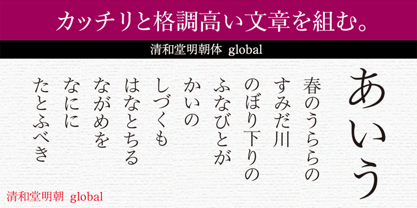
Seiwa Min Global Std
by Seiwado
After the transition from metal type to phototypesetting, characters were able to be designed directly by brush writing, resulting in elegant and delicate forms. The kanji of "Seiwado Mincho" have evolved this further, adjusted for an optimal snug fit not seen in previous Mincho types, and incorporating the attractive taste of traditional body-text Mincho in their form, thus creating a dignified kanji for text purposes. "SeiwaMin Global" serves as the flagship typeface and, while cherishing each character's unique shape, it pursues standardization and versatility to enhance usability, expressing an ideal form that specializes in readability. The design includes a seemingly orthodox skeleton structure that facilitates the flow of text without unnecessary stops or distracting movements of the gaze.
Seiwado Mincho font places great importance on the flow of characters. It was created with the constant image of the special atmosphere that arises between the work and the reader.